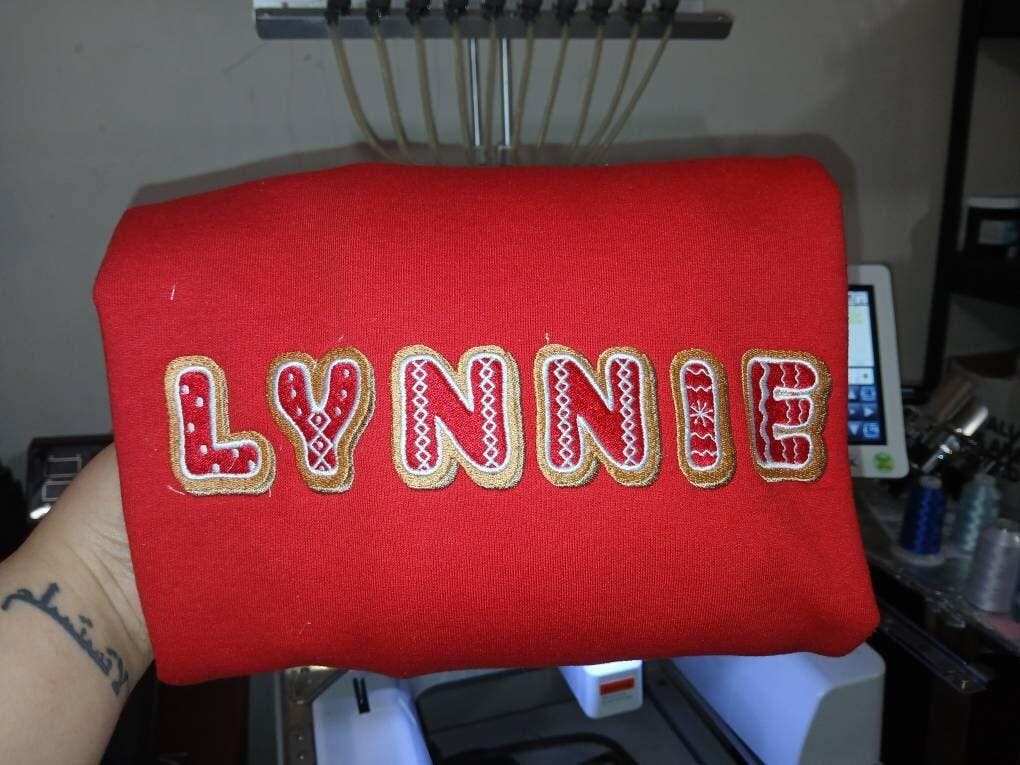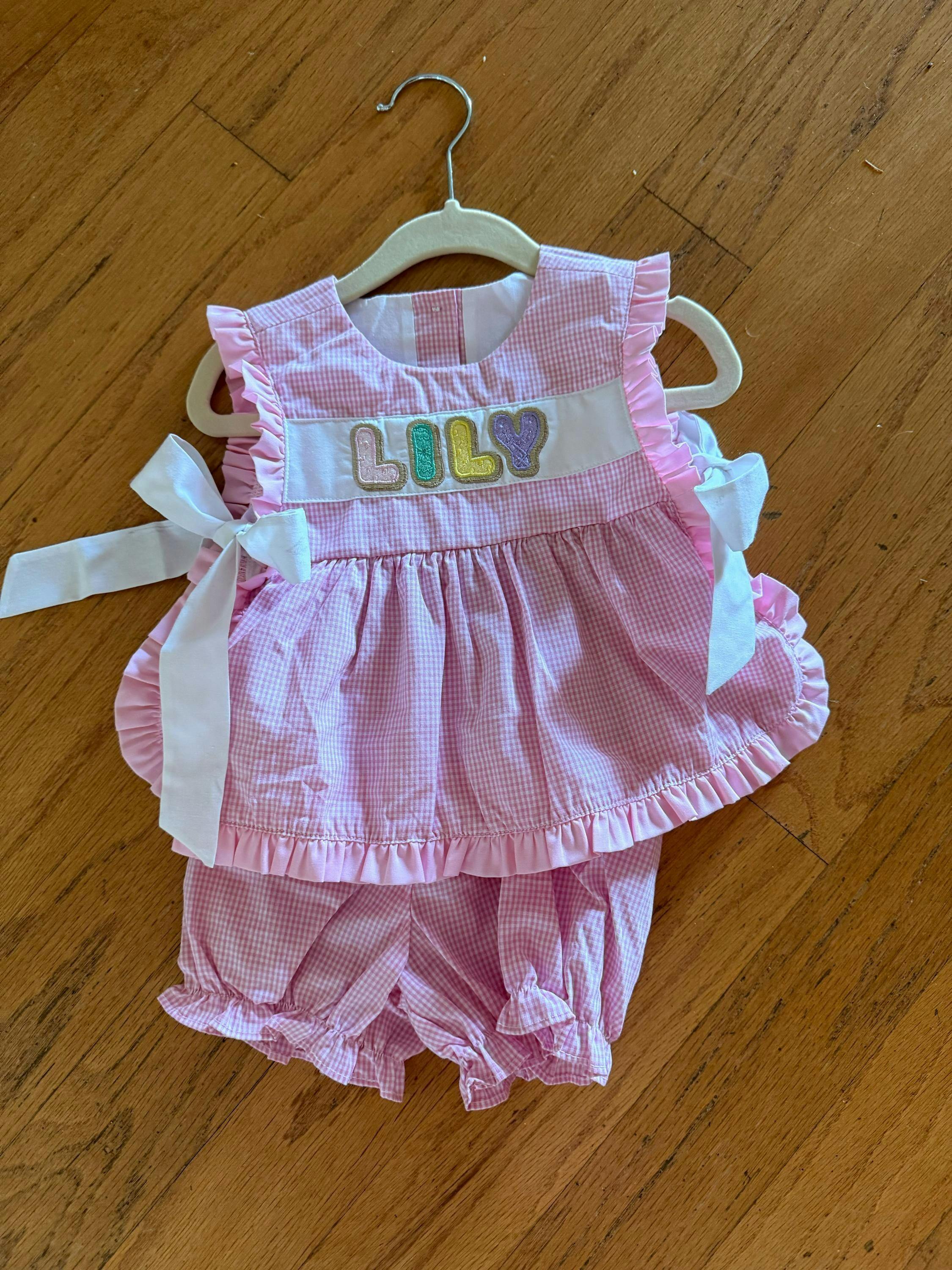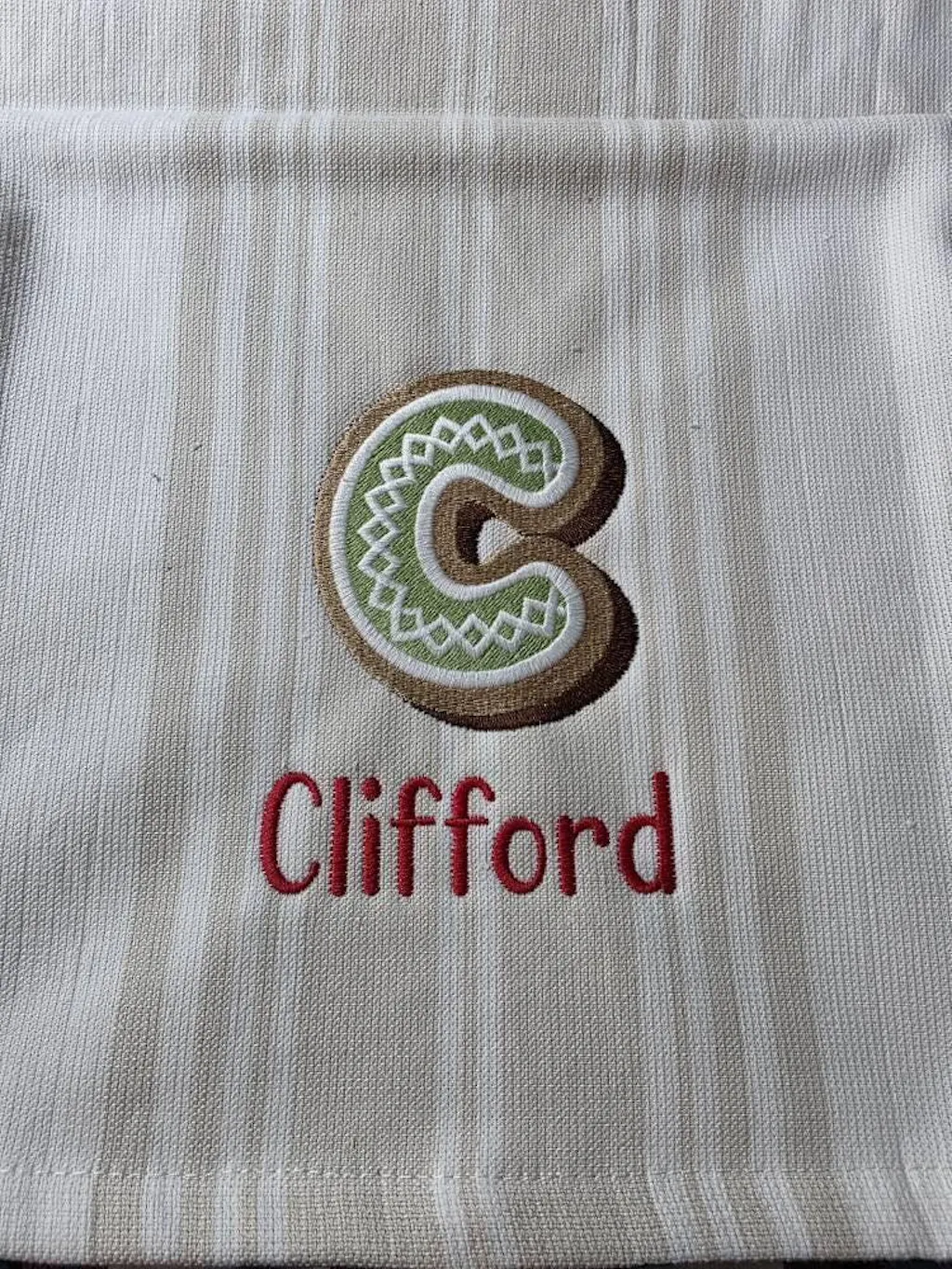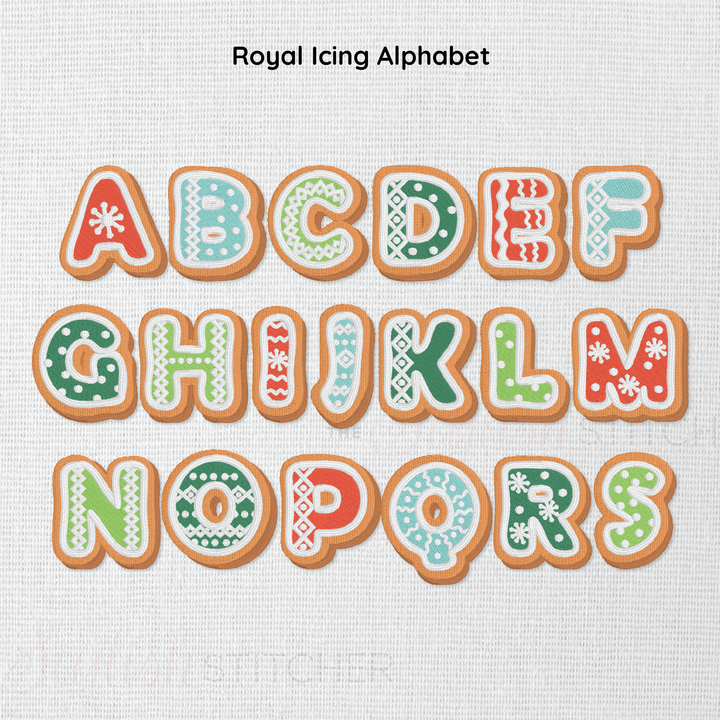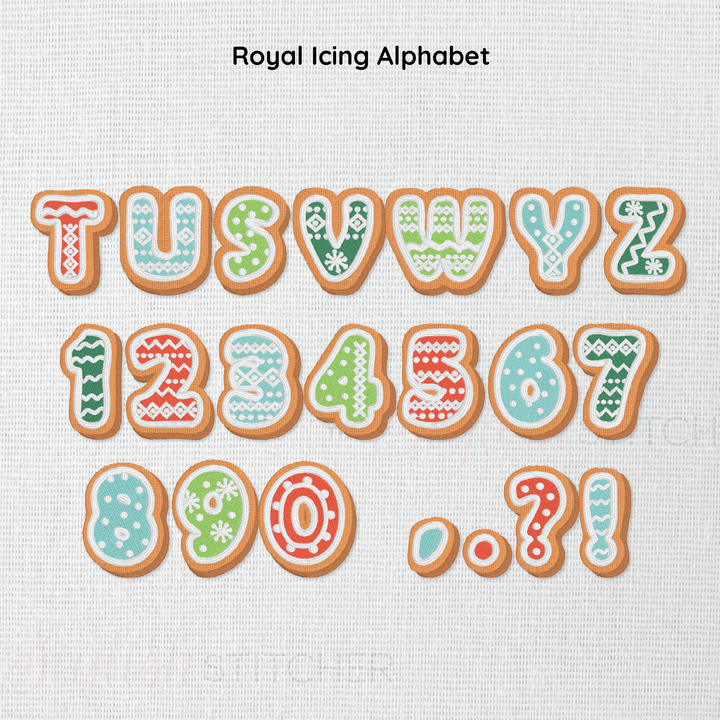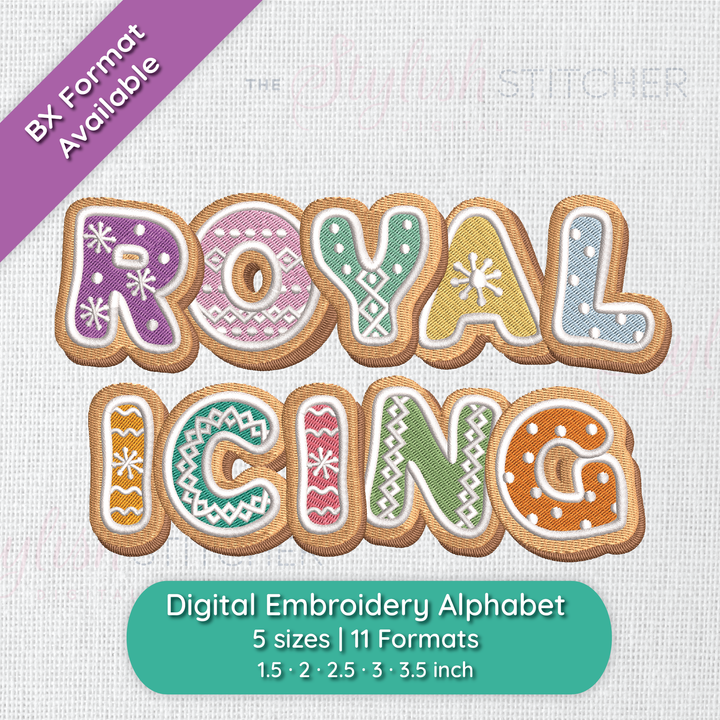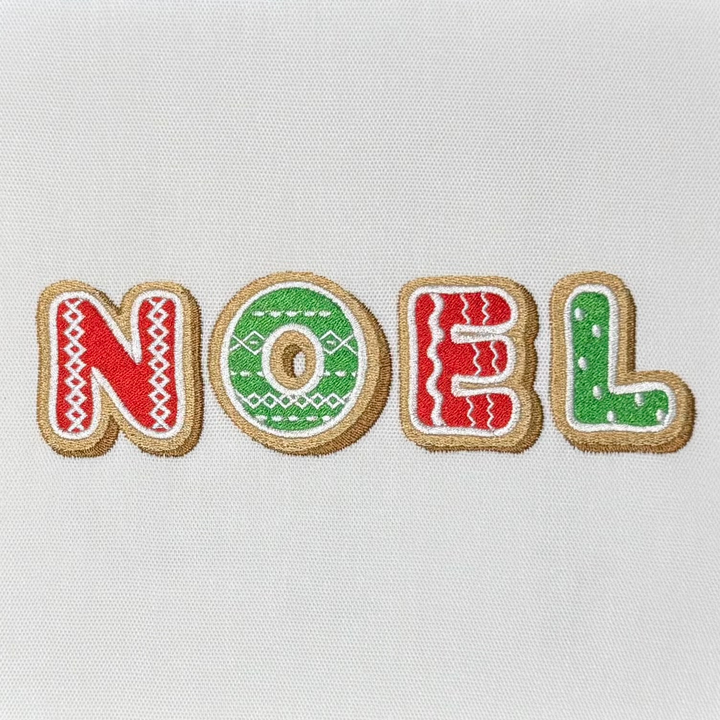
Photograph of stitched out Royal Icing embroidery font
Photograph of stitched out Royal Icing embroidery font alphabet
Video showcasing stitched out Royal Icing font
Close up photograph of stitched out Royal Icing embroidery font
Royal Icing Digital Alphabet Font
Introducing the Royal Icing Font
Sweet, festive, and oh-so-delicious! The Royal Icing embroidery font adds a whimsical, handcrafted touch to any project. Perfect for holiday designs or adding a sprinkle of fun year-round, this playful font features intricate details that resemble beautifully iced cookies. Available in five sizes and 11 formats, it’s ideal for personalizing gifts, decorations, and more! Stitch your creativity with this delightful, frosted lettering set!